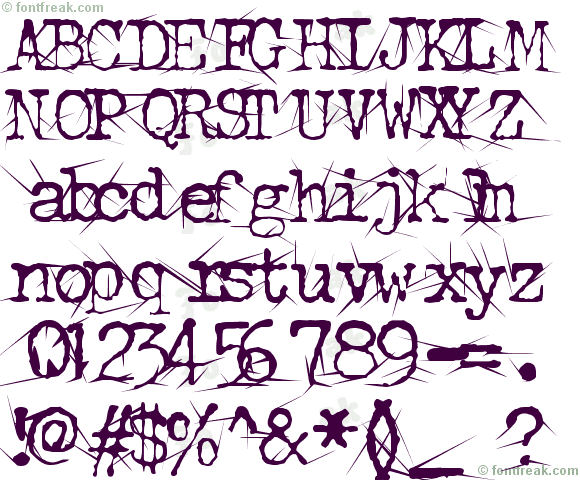
Confused Root
The Confused Root font, created by Patrick Durr in 1998, is a distinctive decorative typeface that stands out with its unique and playful characteristics. This font features an irregular, slightly chaotic design that evokes a sense of whimsy and spontaneity. The strokes have varying weights, giving it an organic feel, while the sharp and jagged edges introduce an element of surprise. This visual style can best be described as a fusion of handwritten and display categories, which makes it suitable for a variety of creative applications.
Given its eye-catching nature, the Confused Root font is an excellent choice for specific use cases such as posters for indie films, edgy music album covers, or promotional materials for art and design events. It can also add a unique touch to restaurant menus, especially for establishments seeking to convey a laid-back and artistic vibe. Additionally, this font can be ideal for invitations to casual celebrations, creating an informal yet memorable impression.
The target audience for Confused Root includes graphic designers, artists, small business owners, and content creators who are looking to infuse their projects with a sense of individuality and charm. Its freeware license makes it accessible for anyone wanting to experiment with its distinctive style without financial constraints.
What sets the Confused Root font apart is its ability to convey emotion through design. The font’s playful and chaotic elements invite viewers to engage and explore, making it perfect for projects that aim to stand out in a crowded visual landscape. For those interested in making a bold statement, the Confused Root font free download is an opportunity to incorporate a unique typographic element into any creative endeavor.